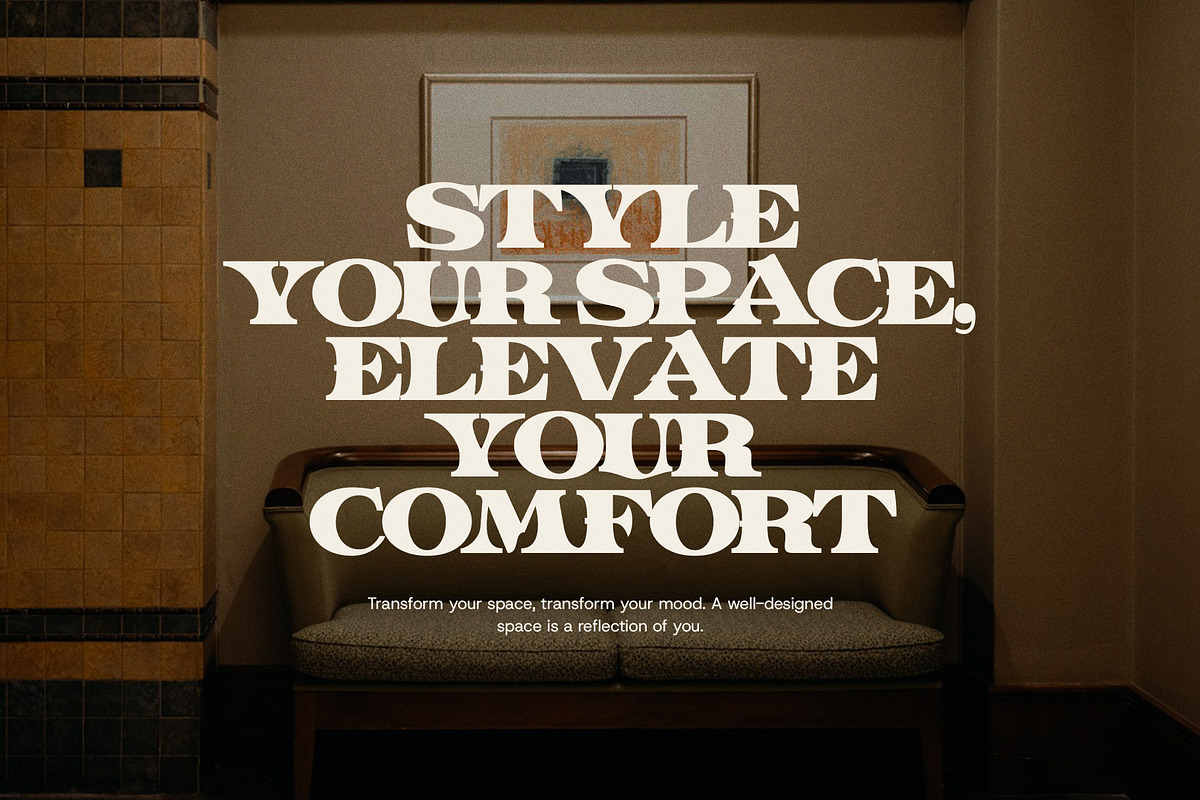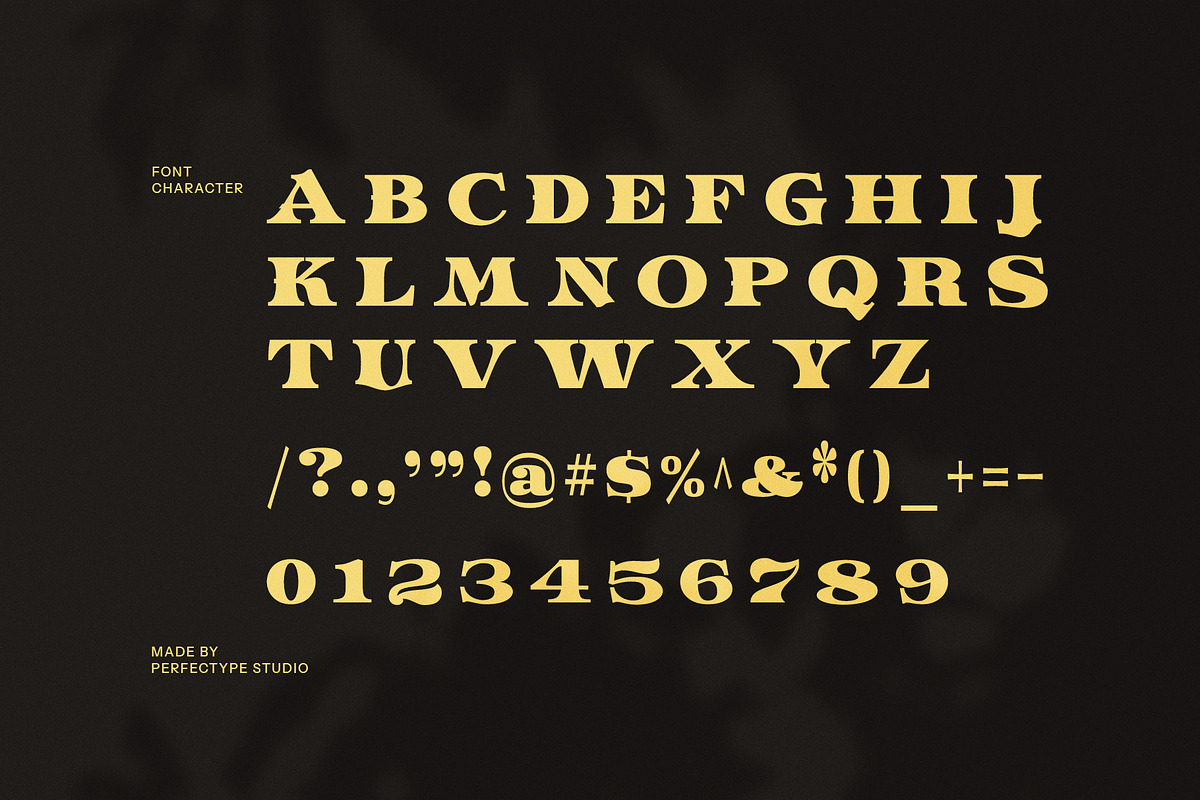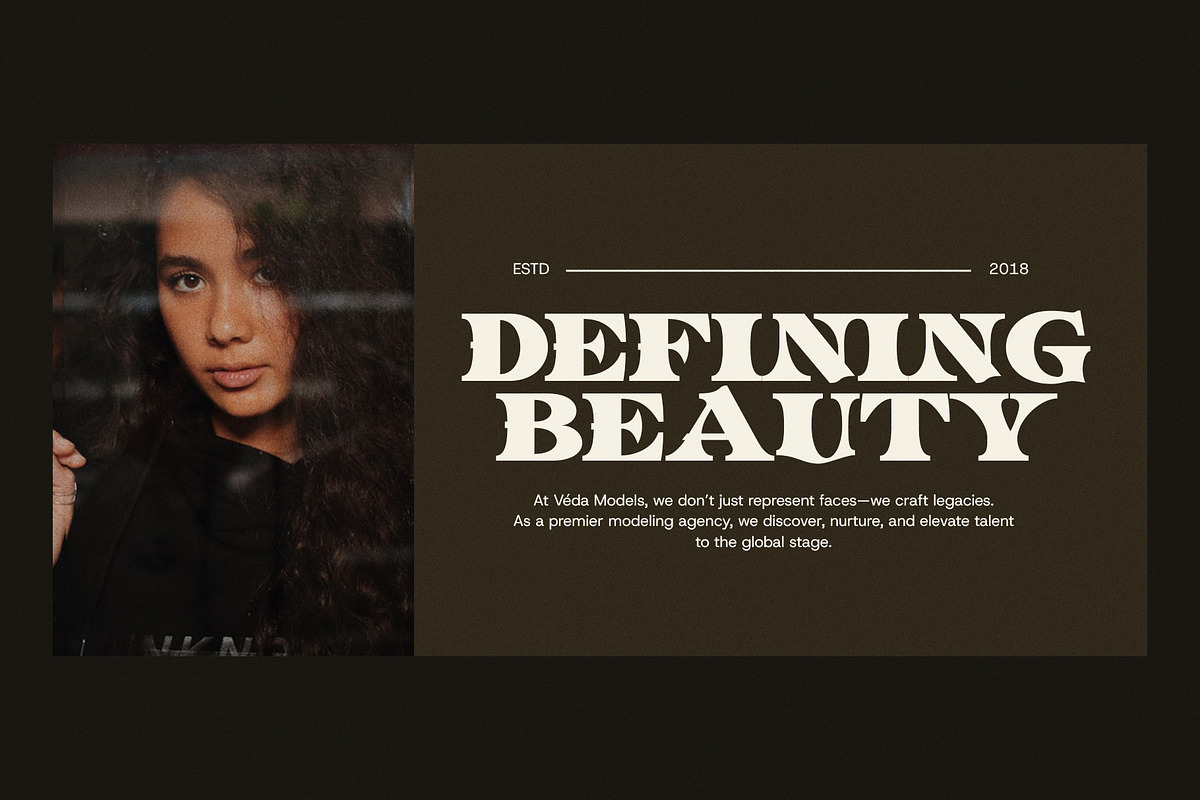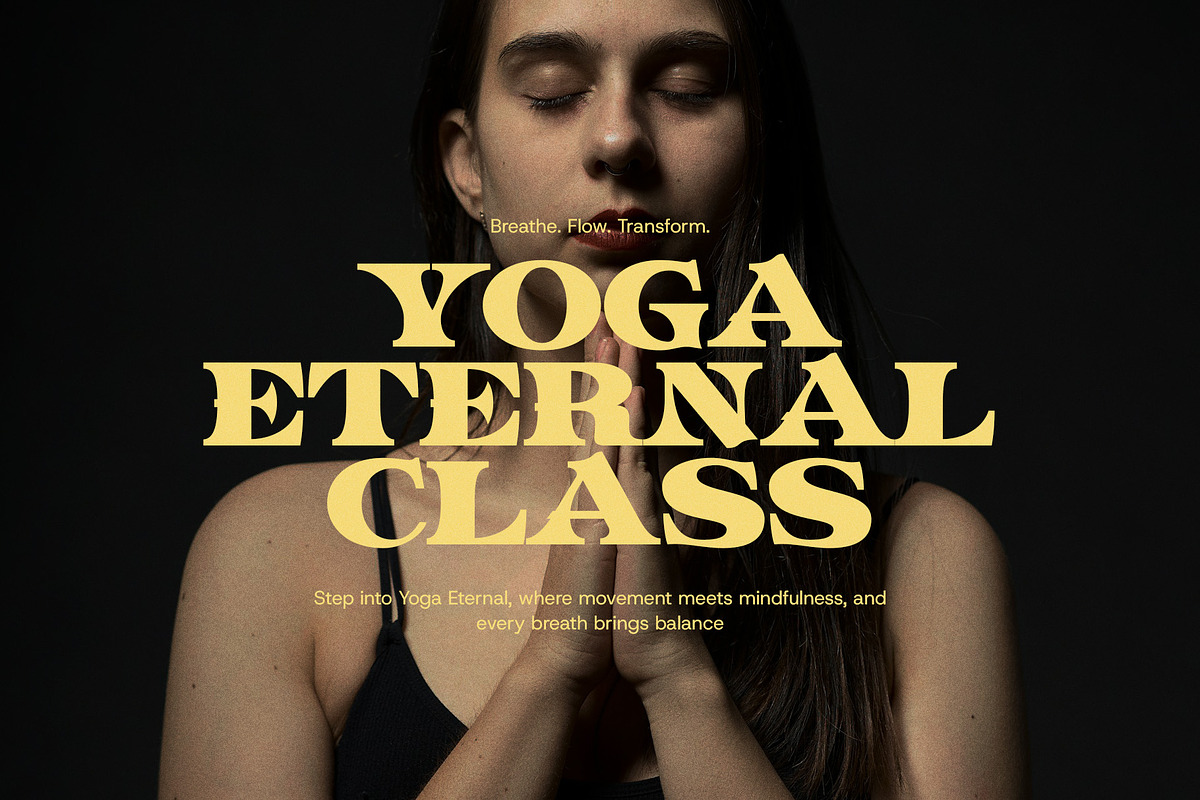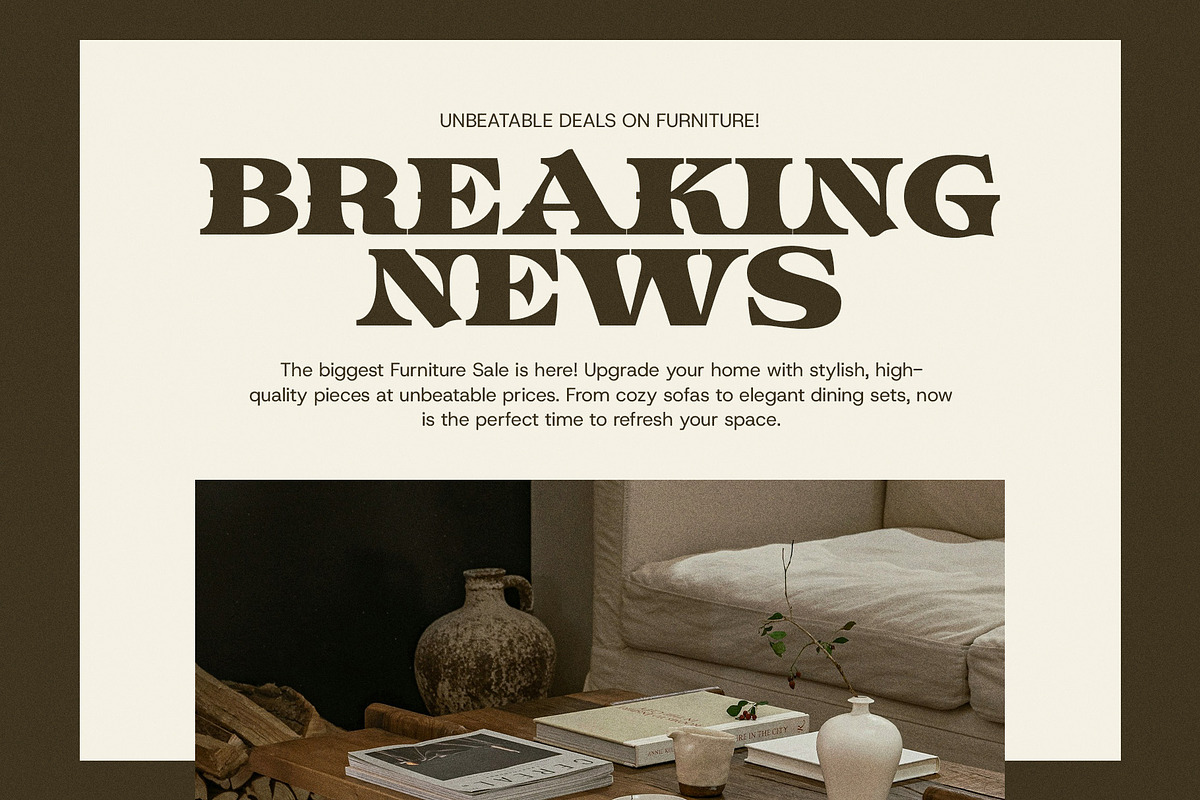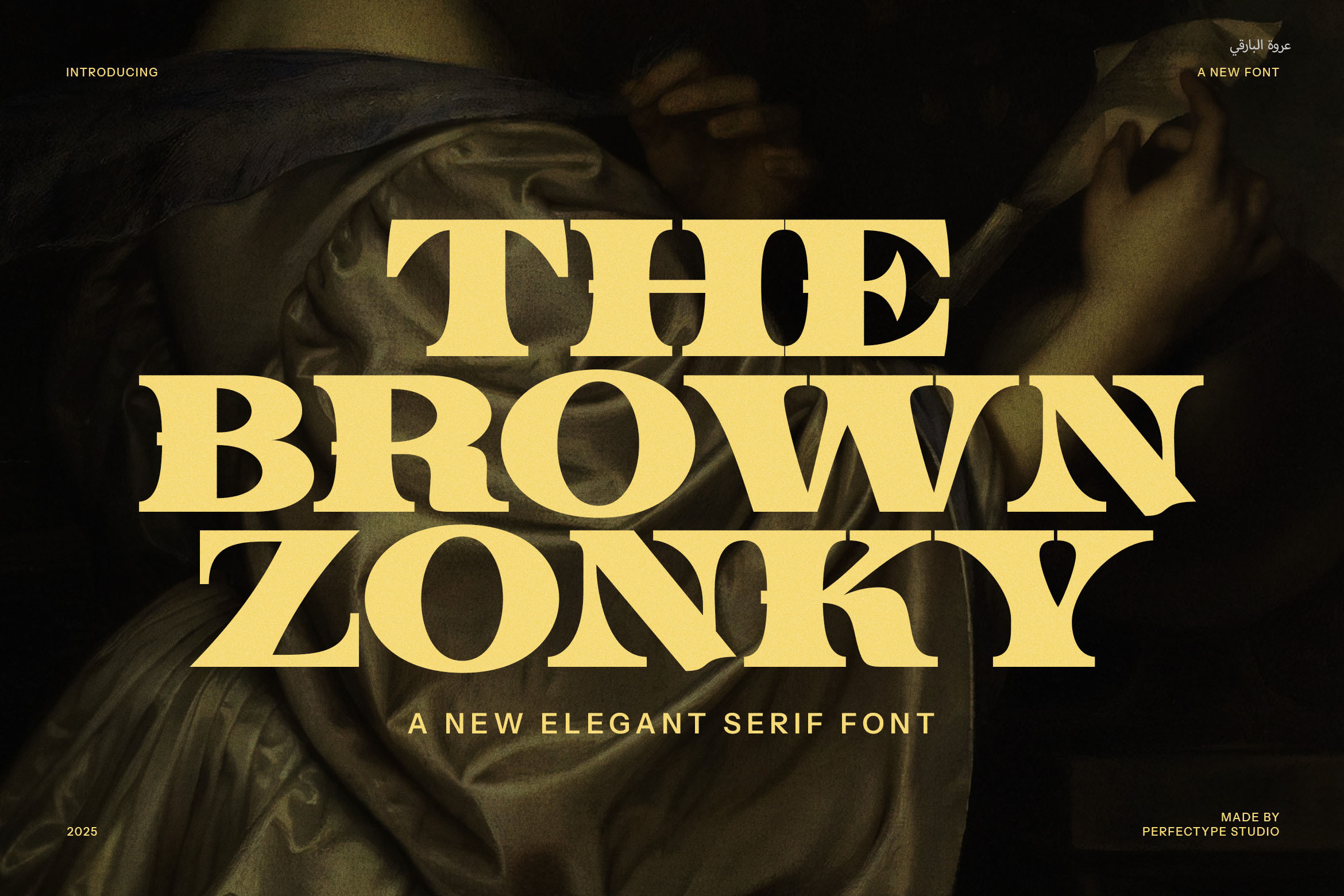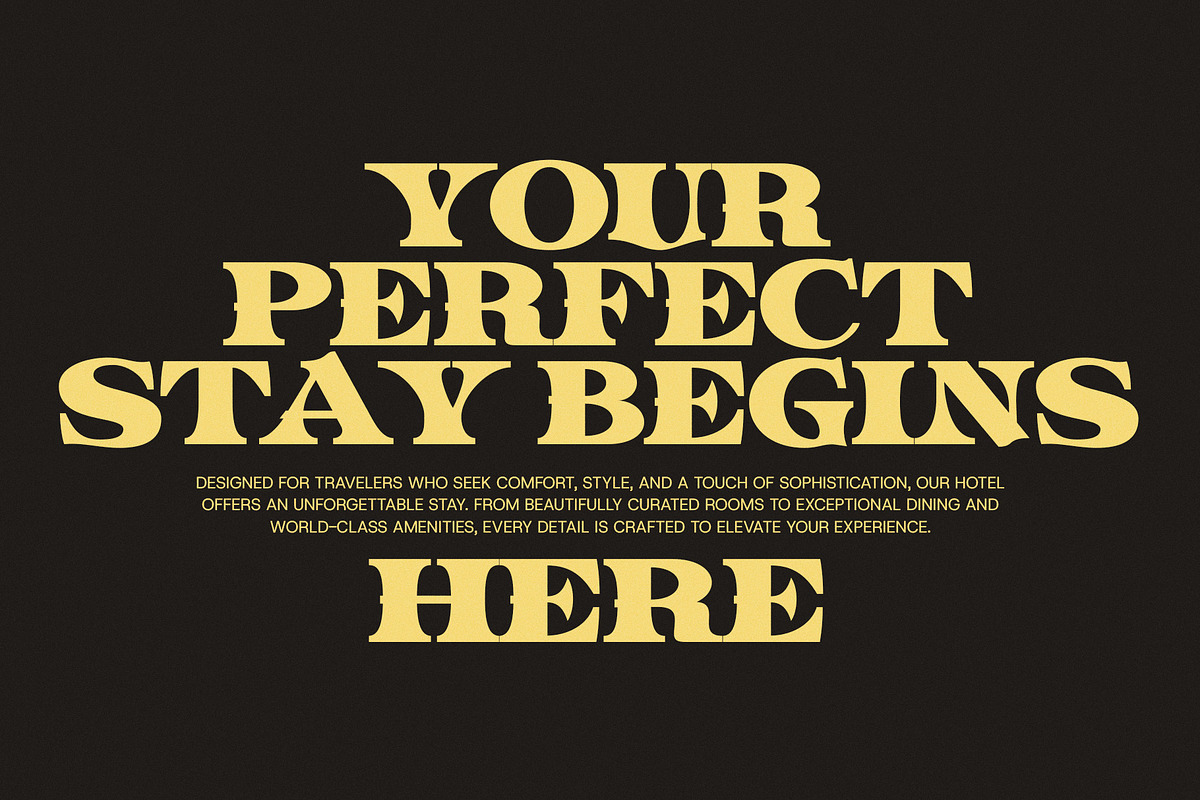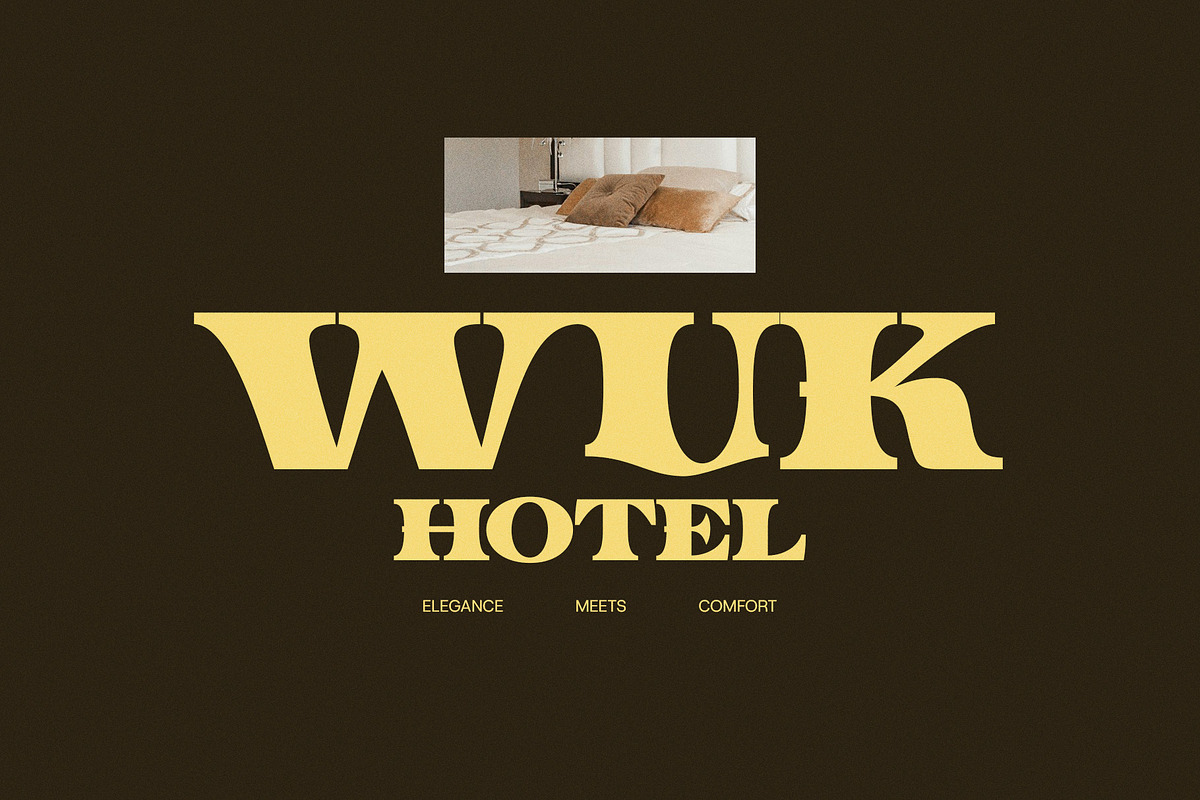
The Brown Zonky Elegant Serif Font
Brown Zonky Elegant Serif Font is a modern and sophisticated serif typeface that embodies elegance and versatility. With its carefully crafted serifs and strikingly smooth curves, this font offers a perfect blend of traditional charm and contemporary flair. Its distinctive ligatures and alternate characters bring a touch of uniqueness to your designs, making it ideal for projects that require a refined and polished appearance.
Perfect for a variety of applications, Brown Zonky is well-suited for luxury logos, premium branding, and stylish websites. Its elegant design makes it a standout choice for magazine layouts, product packaging, and advertisements, adding a sense of prestige and class to your creative endeavors. The font’s elegant features make it a natural fit for boutique branding, high-end food products, fashion, and more.
Designed to provide both beauty and functionality, Brown Zonky works effortlessly in print and digital formats. Whether creating eye-catching headlines, sophisticated invitations, or impactful advertisements, this font is guaranteed to elevate your design with its stylish presence. The unique ligatures and alternate forms offer extra flexibility, allowing you to customize your typography and create personalized compositions that stand out.
Brown Zonky Elegant Serif Font is perfect for those who seek to combine modern elegance with timeless appeal. Its graceful design and versatility make it an excellent choice for any project that requires a sophisticated, professional touch. Elevate your brand and designs with the stunning beauty of Brown Zonky, and let your typography shine with elegance.